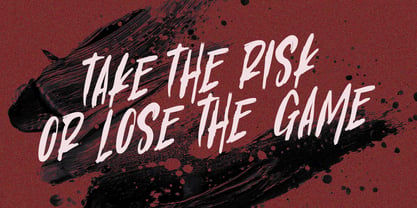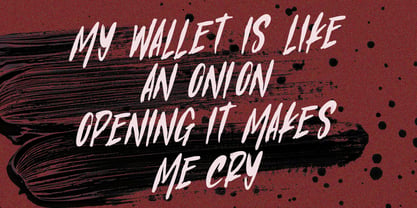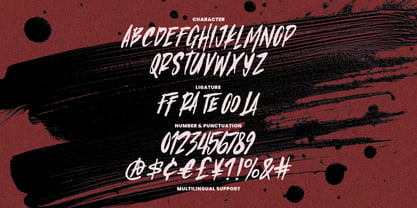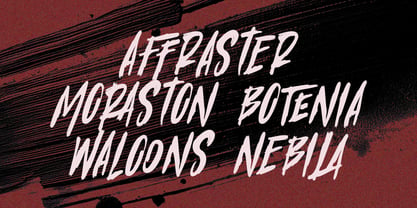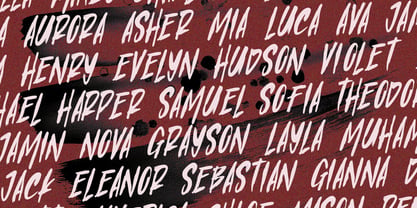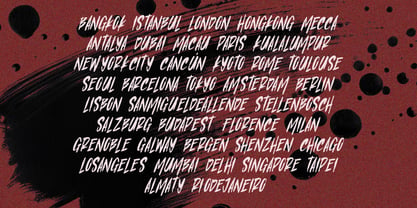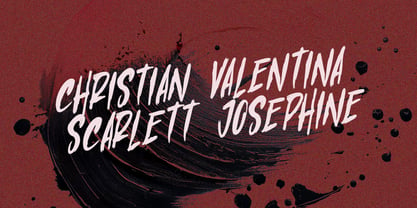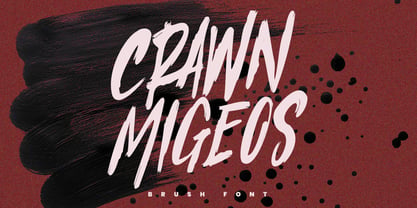
MC Crawn Migeos
by Maulana Creative
The MC Crawn Migeos Font Family was designed by Gilang Maulana and published by Maulana Creative. MC Crawn Migeos contains 1 styles. More about this family
Crawn Migeos is a powerful and dynamic Brush Display Font designed to inject raw energy and a hand-painted, aggressive aesthetic into your projects. Crafted with bold, sweeping strokes, this font captures the authentic texture and motion of a real paintbrush, making every letter look like a piece of passionate art. This striking typeface is perfect for designs that demand attention and a rebellious spirit. Whether you're creating for rock concerts, crafting edgy designs, developing video game titles, or designing high-impact branding, Crawn Migeos delivers a strong, unforgettable statement. Key Features: - Authentic Brush Texture: Features gritty, textured edges and varying stroke weights for a realistic hand-painted feel. - All Caps Display: Strong, tall letters ensure maximum readability and visual impact. - Extensive Character Set: Includes full uppercase characters, numbers, and punctuation. - Ligatures: Special ligatures (like FF, RA, TE, OO, LA) add extra flair and a natural flow, eliminating awkward letter combinations. - Multilingual Support: Ready to be used across a wide range of global projects.
Designers: Gilang Maulana
Foundry: Maulana Creative